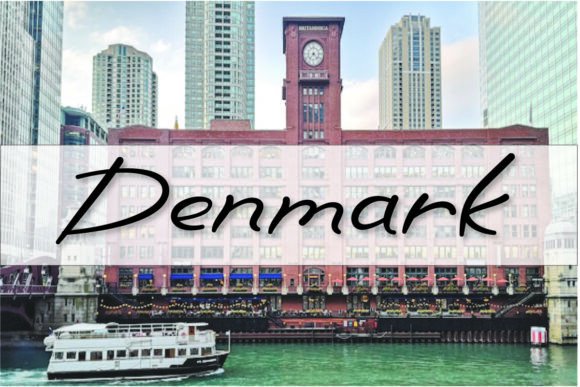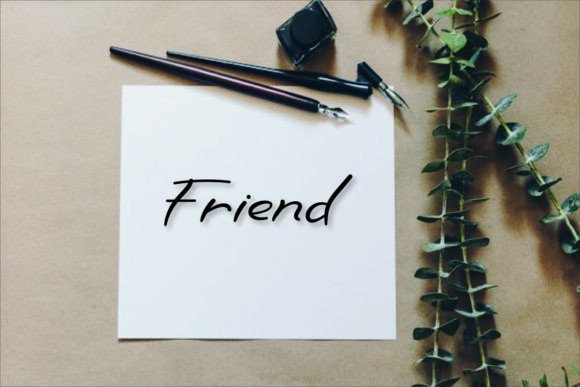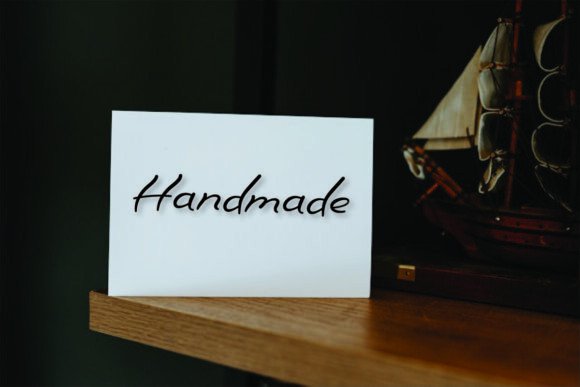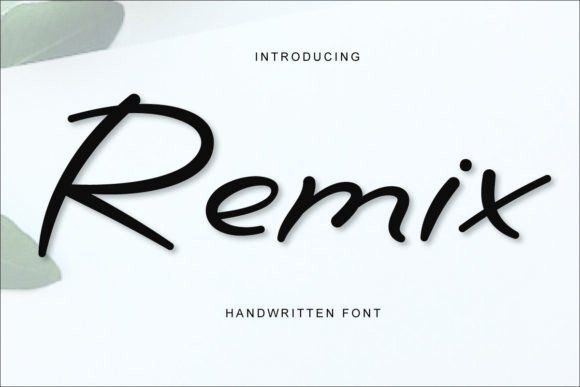
Introduction to Remix Font
Remix is a stylish handwritten script font that exudes elegance and charm with its flowing, graceful curves.
Perfect for invitations, logos, and branding, it adds a personal and sophisticated touch to any design The font’s delicate strokes bring warmth and creativity to your projects.
Key Features of Remix Font
Why Choose Remix Font?